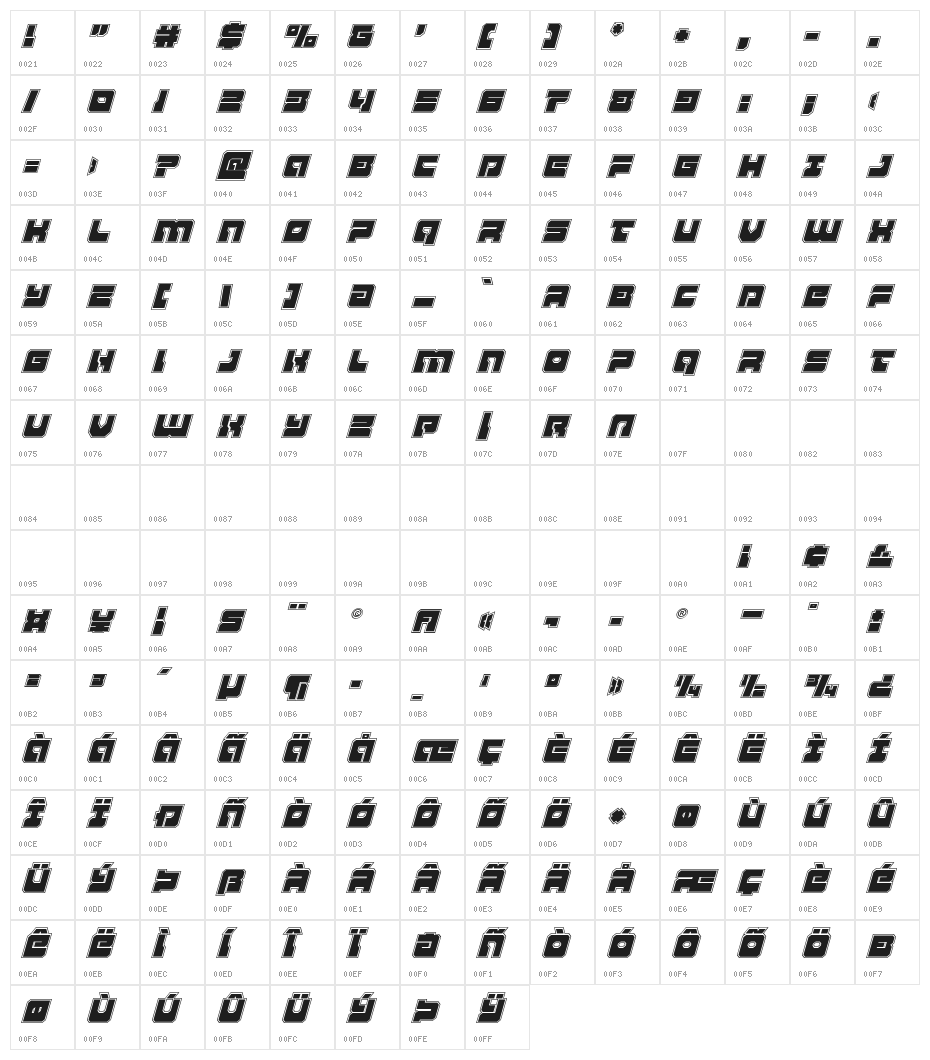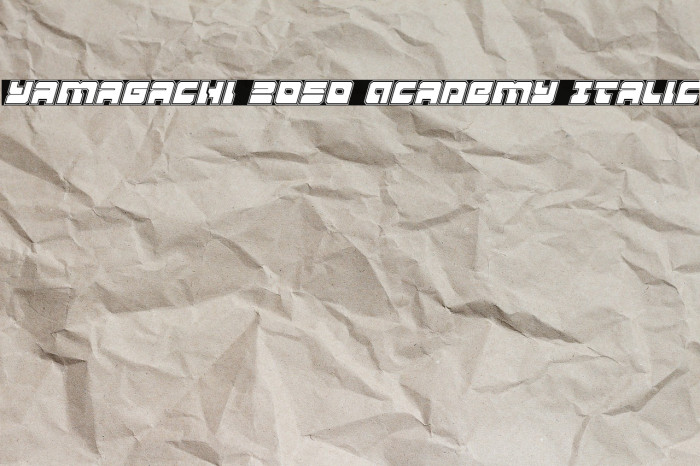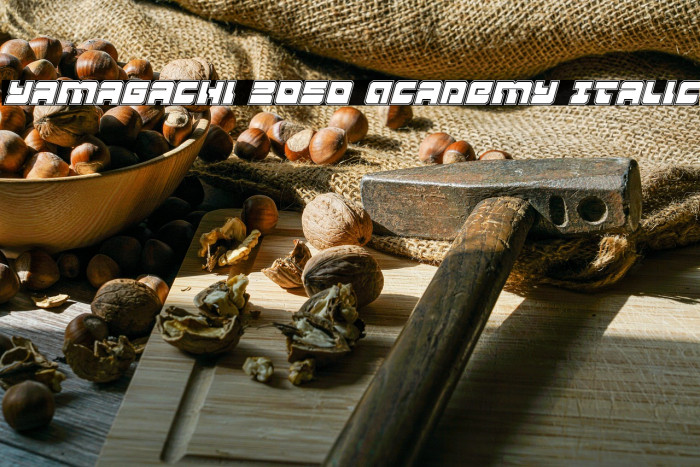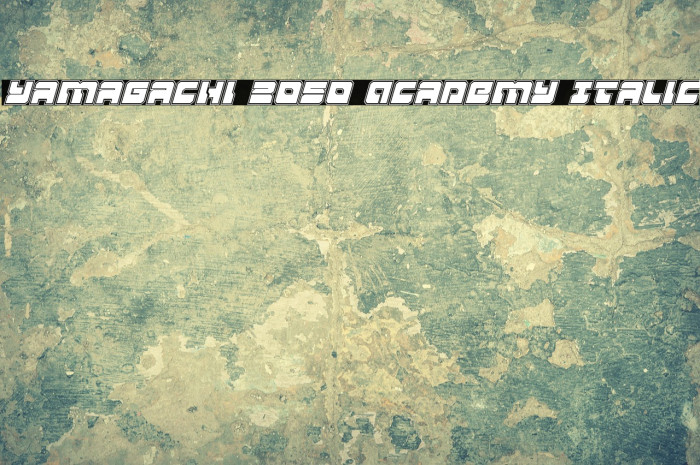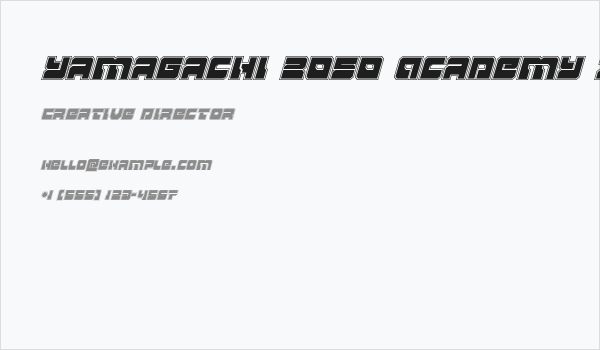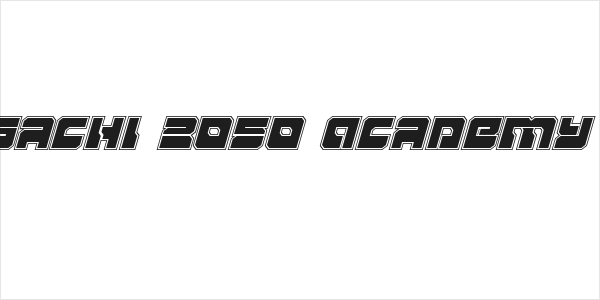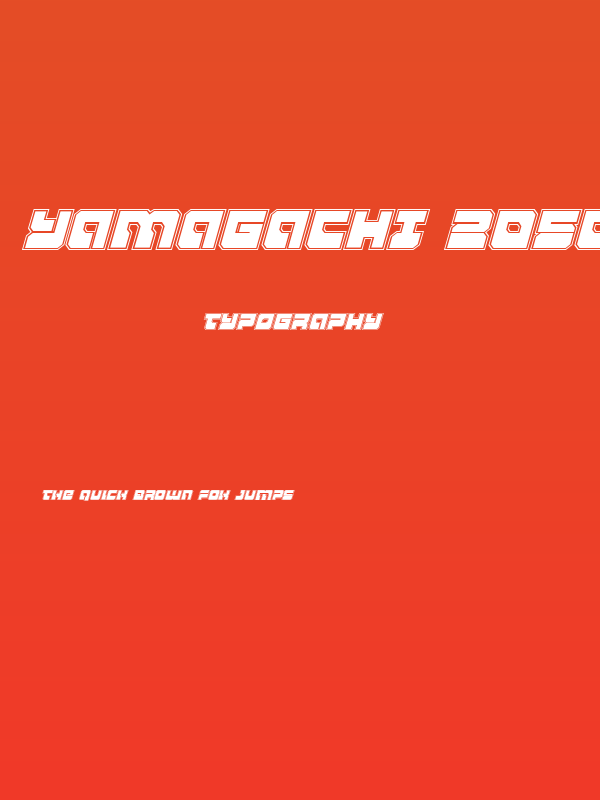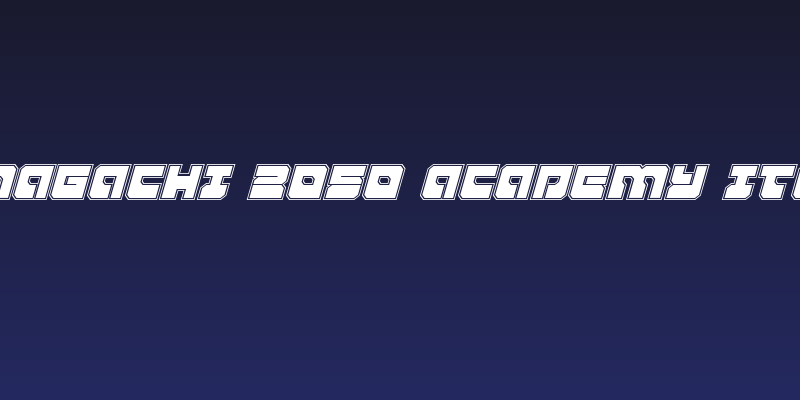
Yamagachi 2050 Academy Italic Font
Yamagachi 2050 Academy Italic Description
This font features a futuristic and bold design with a distinct italic slant. The characters are outlined, giving them a three-dimensional appearance. The geometric shapes and sharp angles contribute to a modern and dynamic look. The uppercase and lowercase letters maintain a consistent style, with uniform stroke widths and a strong presence. The numerals and special characters follow the same design principles, ensuring a cohesive appearance across all glyphs. This font is ideal for projects that require a bold and eye-catching typeface.
| Proposed Projects | Ideal for sci-fi themed designs, technology branding, video game titles, and futuristic posters. |